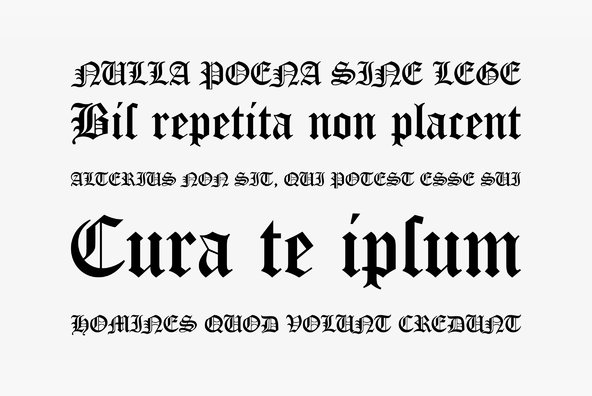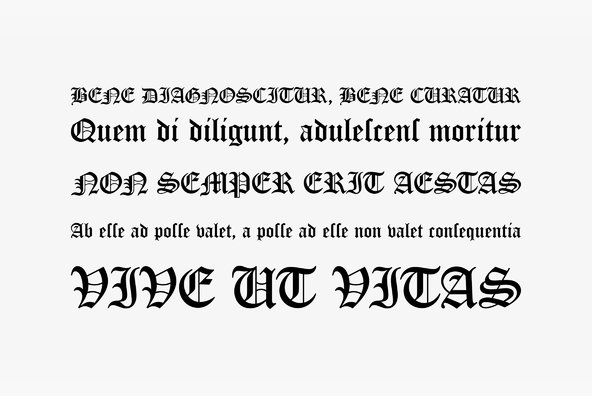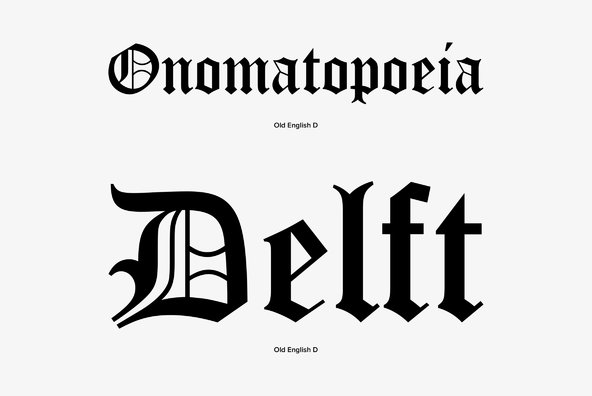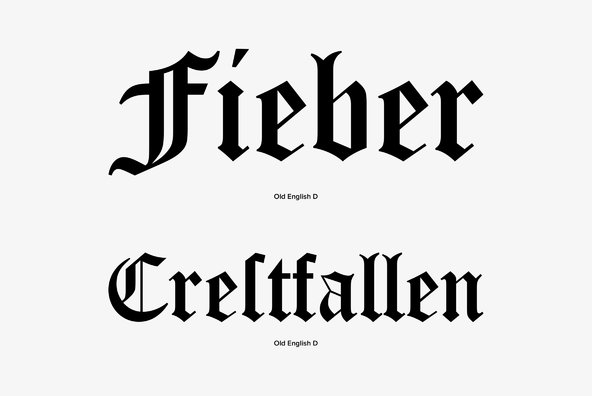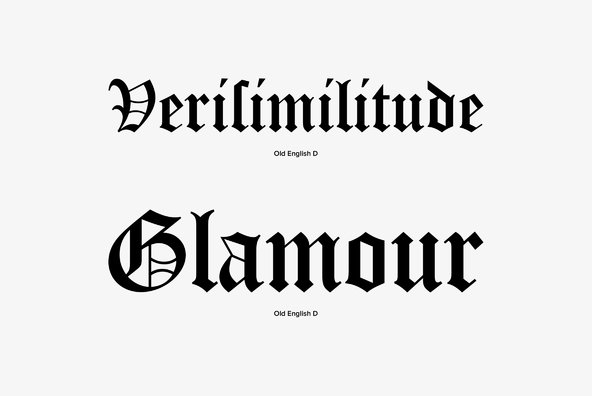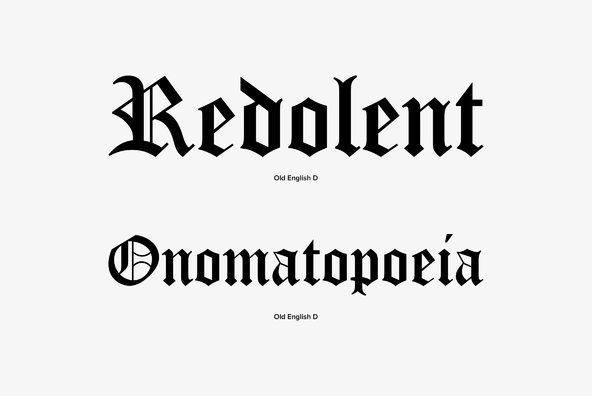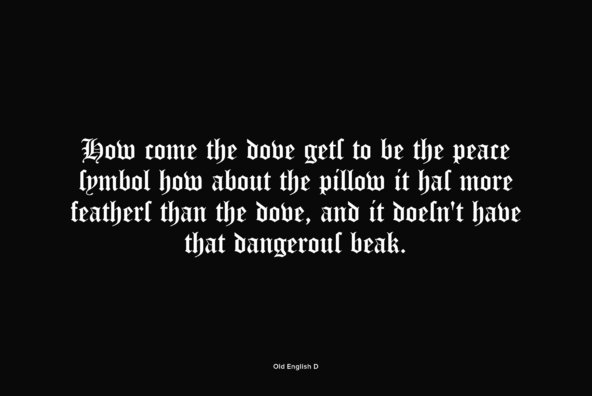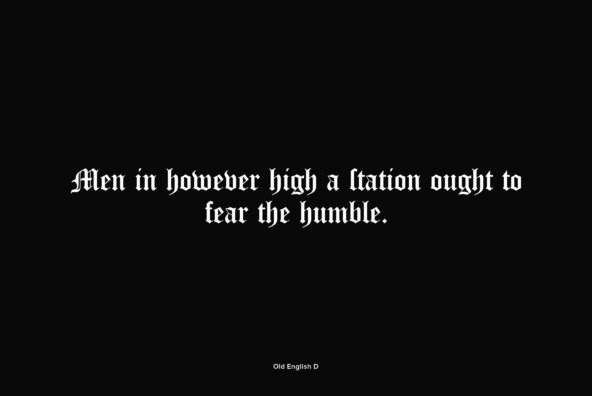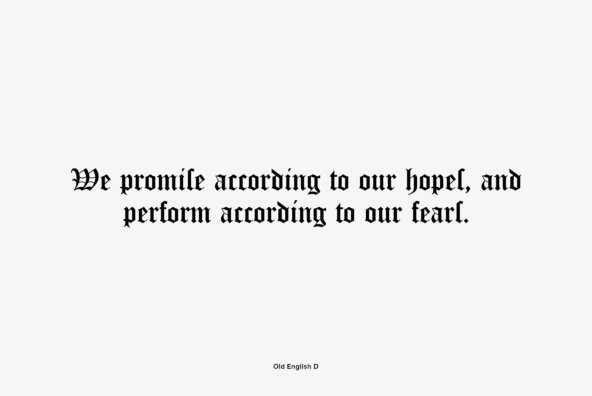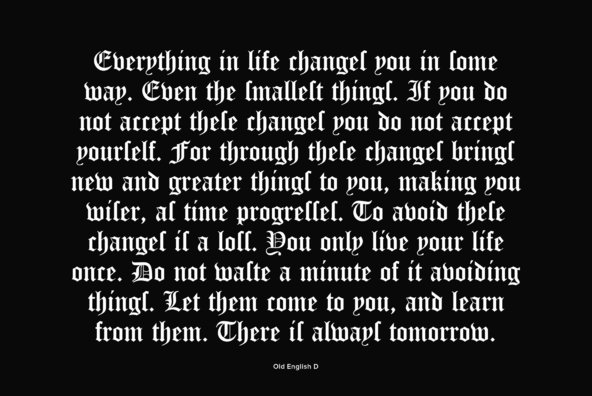
Old English is related to Black Letter styles from early printed books and have a distinguished, historic look. The Old English font is used in advertising, invitations, greeting cards, and wherever a formal hand-lettered or engraved look is desired.